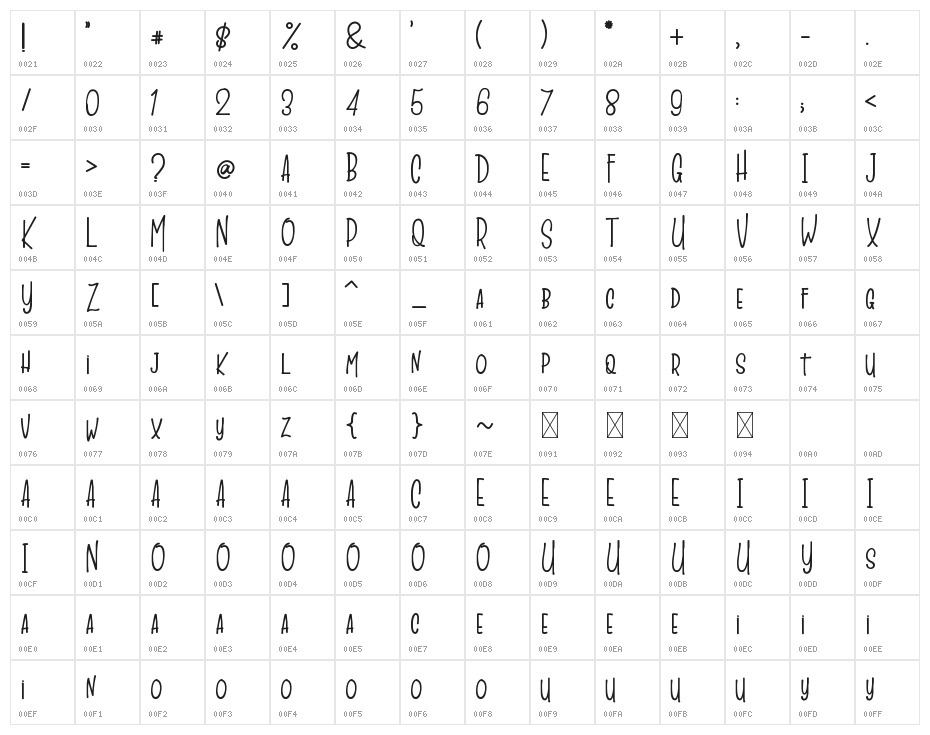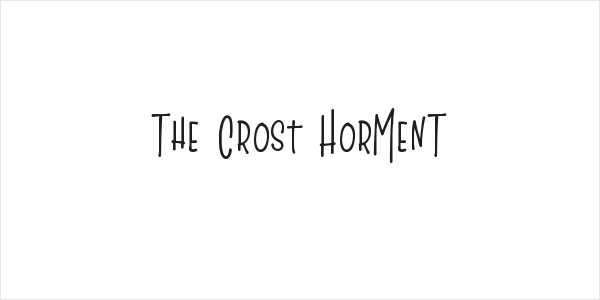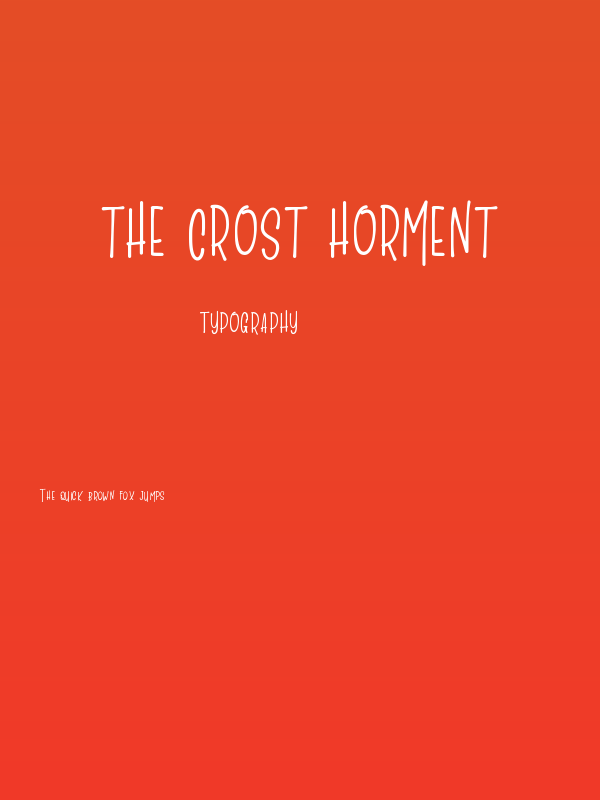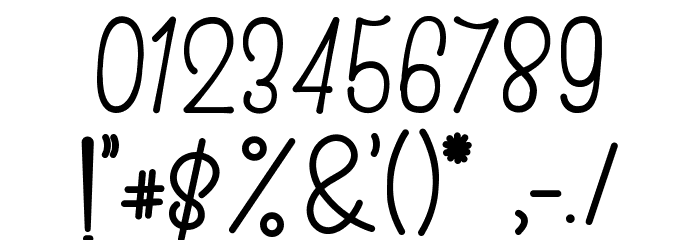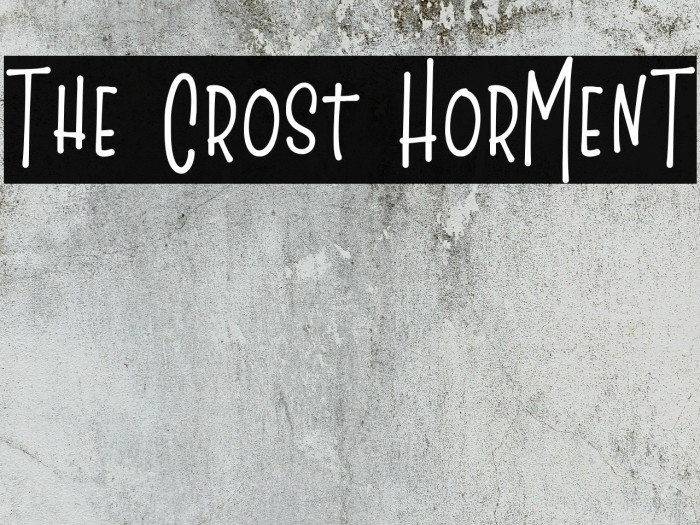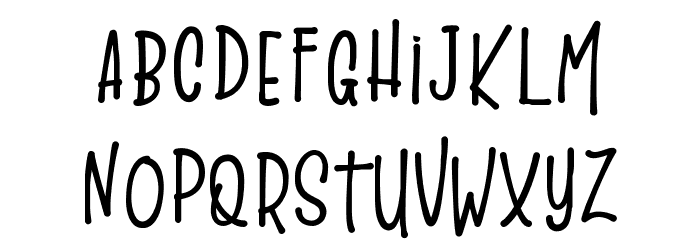
The Crost HorMenT Font
The Crost HorMenT Description
This font features a playful and casual handwritten style, characterized by its tall, narrow letters with a slight slant. The strokes are uneven, giving it a natural and organic feel. The uppercase and lowercase letters maintain a consistent style, with rounded edges and a friendly appearance. The numerals and special characters follow the same aesthetic, ensuring a cohesive look across all text. This font's informal and approachable design makes it suitable for projects that require a personal touch.
| Use Case | Headlines, Informal text, Personal projects |
| Proposed Projects | Ideal for greeting cards, children's books, personal blogs, and informal branding. |